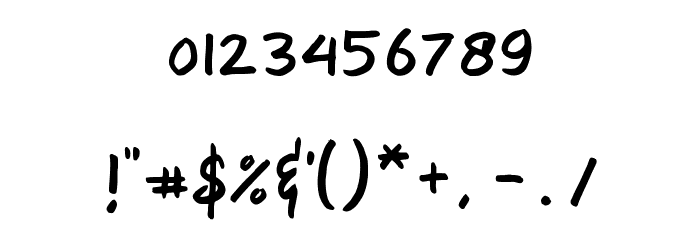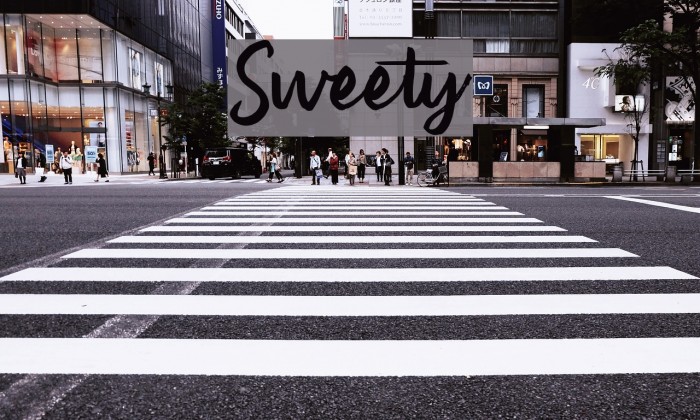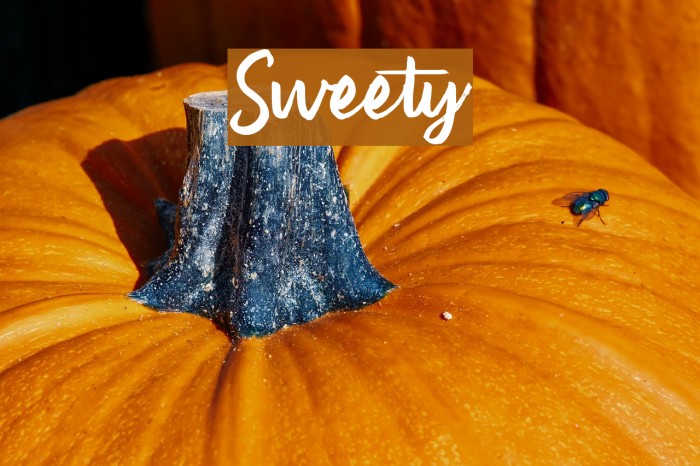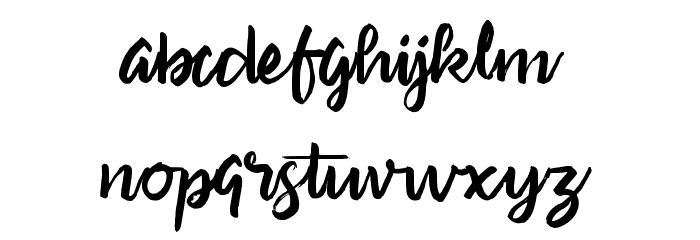
Sweety Font
Sweety Description
This font features a playful and casual handwritten style, characterized by its smooth, flowing strokes and slightly irregular letterforms. The uppercase letters are bold and dynamic, while the lowercase letters exhibit a more relaxed and connected script style. The numerals are clear and easy to read, maintaining the font's overall whimsical aesthetic. Special characters are creatively designed, adding to the font's charm. The font's overall appearance is friendly and approachable, making it suitable for a variety of creative projects.
| Proposed Projects | Ideal for greeting cards, invitations, personal branding, and social media graphics. |